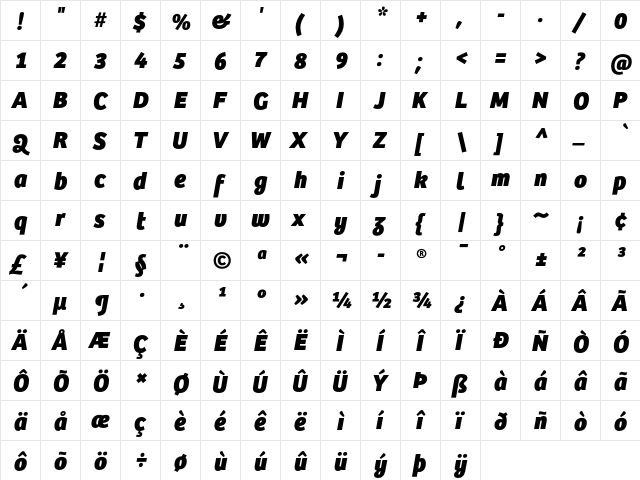
Bree ExtraBold Oblique Font Preview
| Style | ExtraBold Oblique |
| Foundry | TypeTogether |
| Designer | Veronika Burian, JosΠScaglione |
Design Context for Bree Typeface
Bree offers clean, dependable letterforms without strong stylistic allegiance, making it a practical choice for designers who need flexibility. Its italic angle brings a sense of urgency and motion to the letterforms. The heavy weight commands attention and anchors typographic hierarchies.